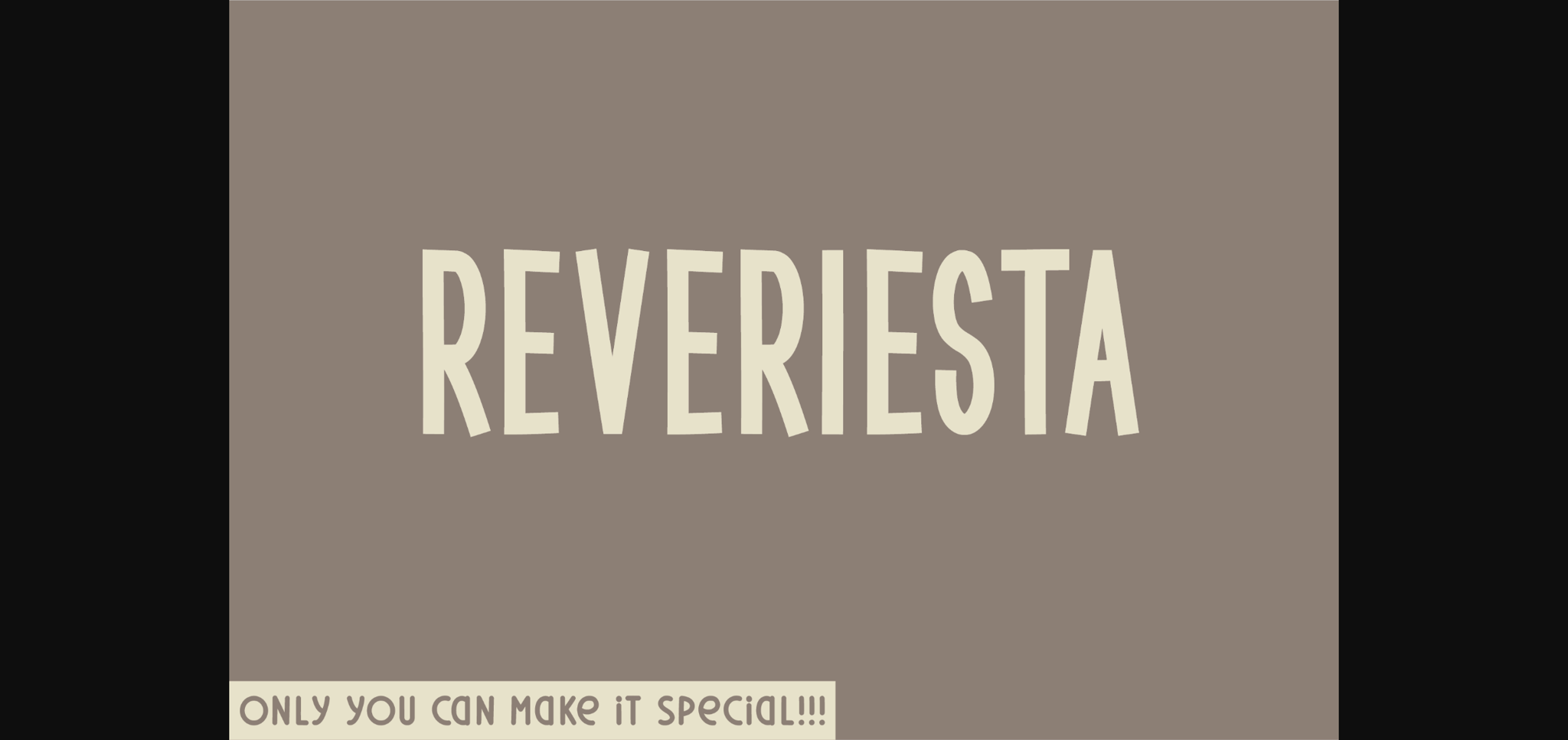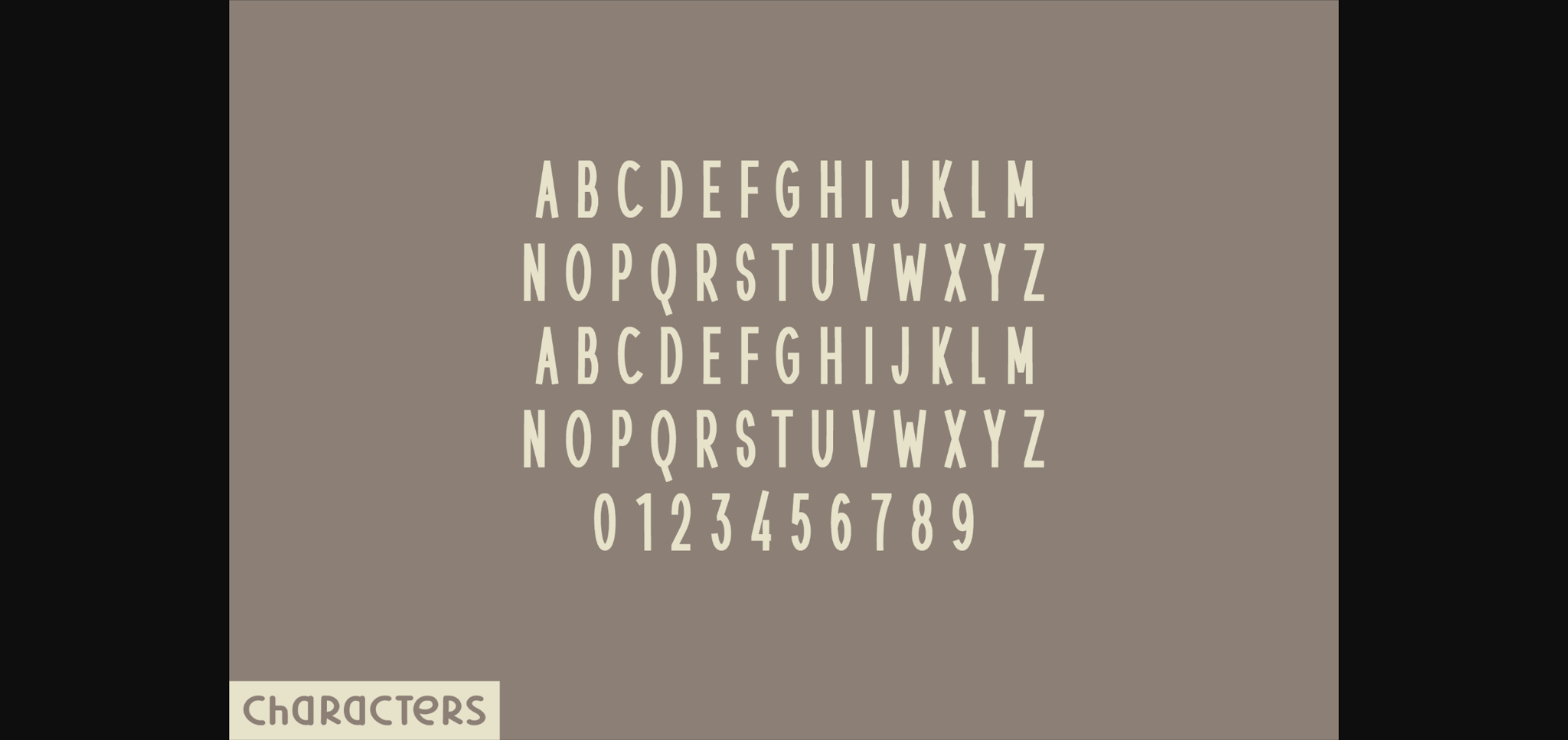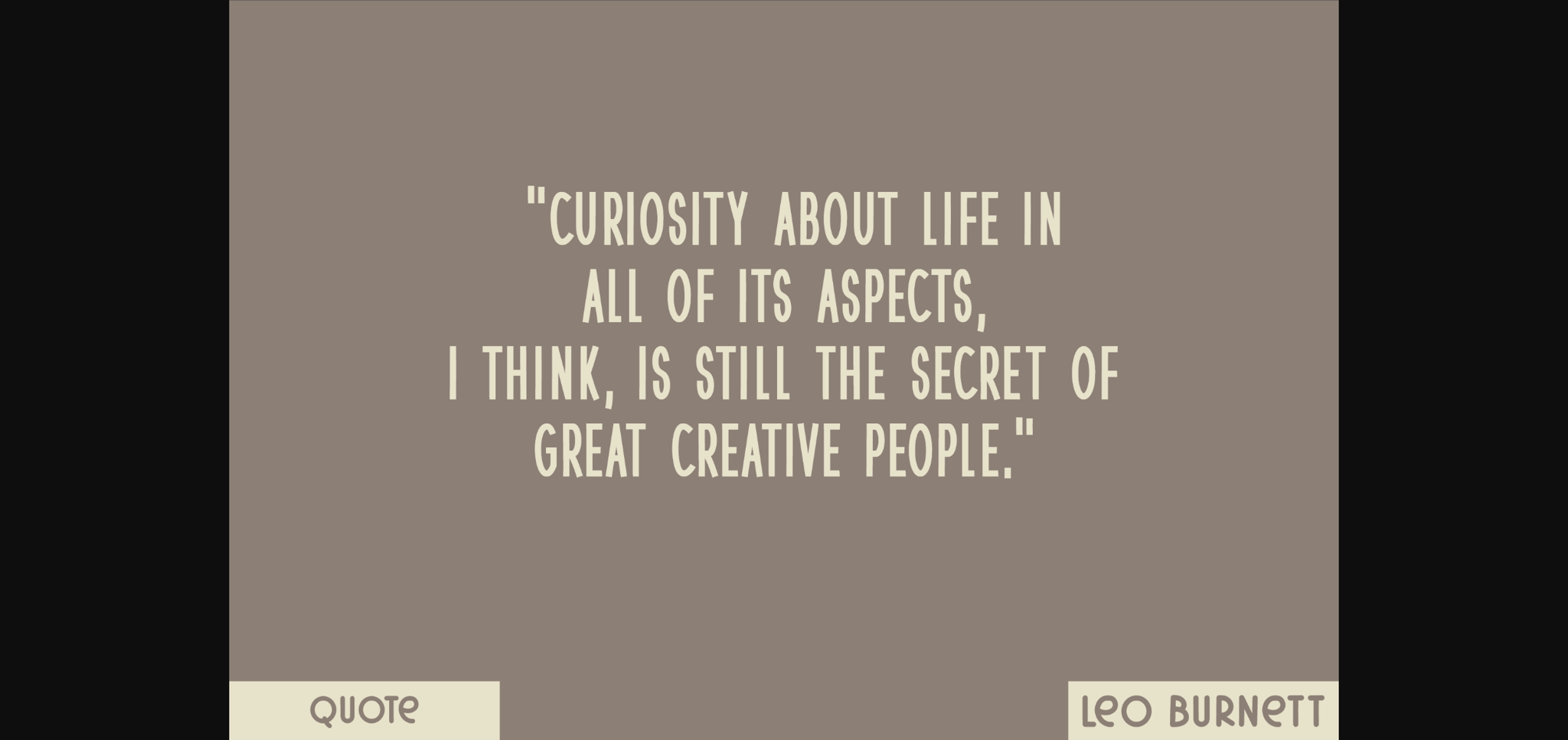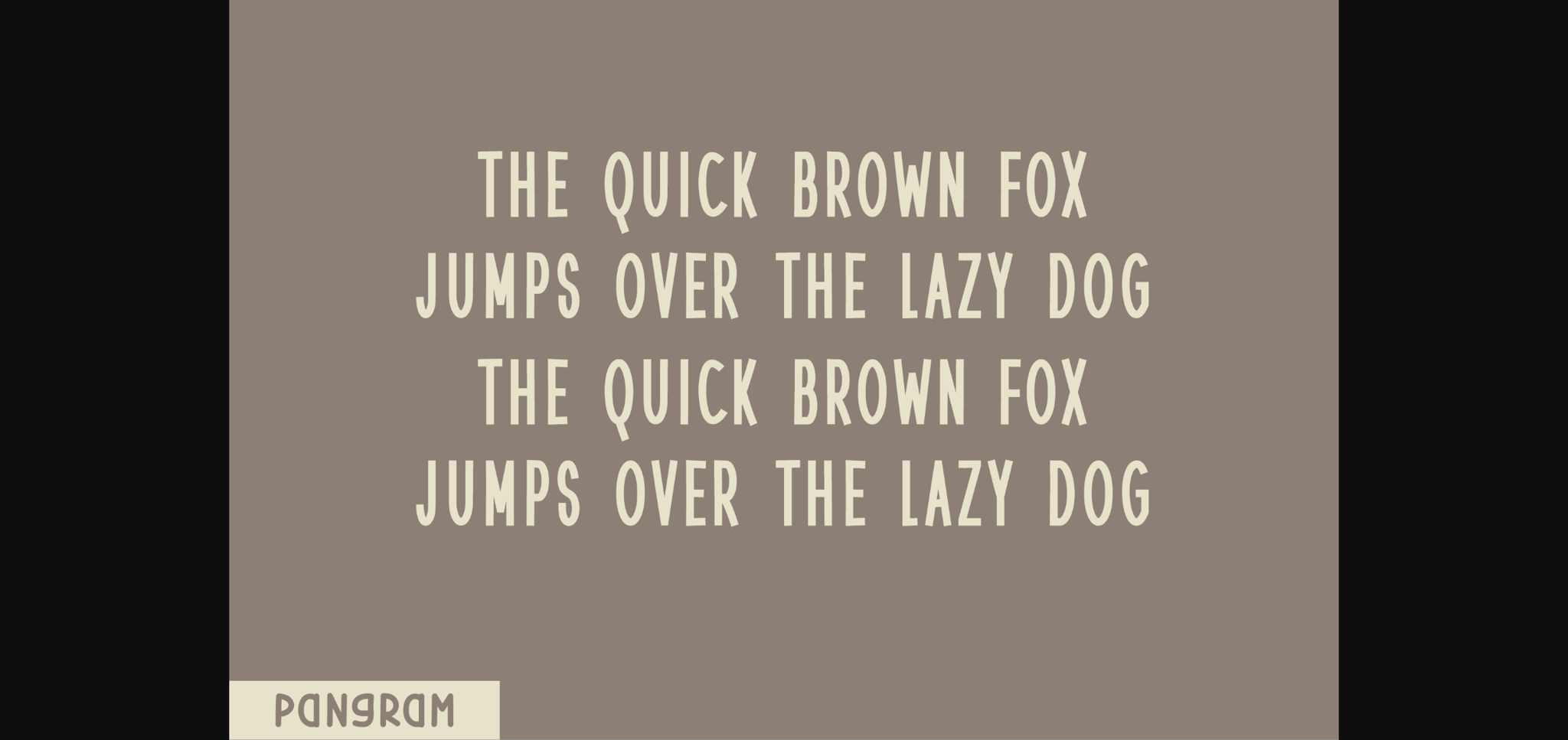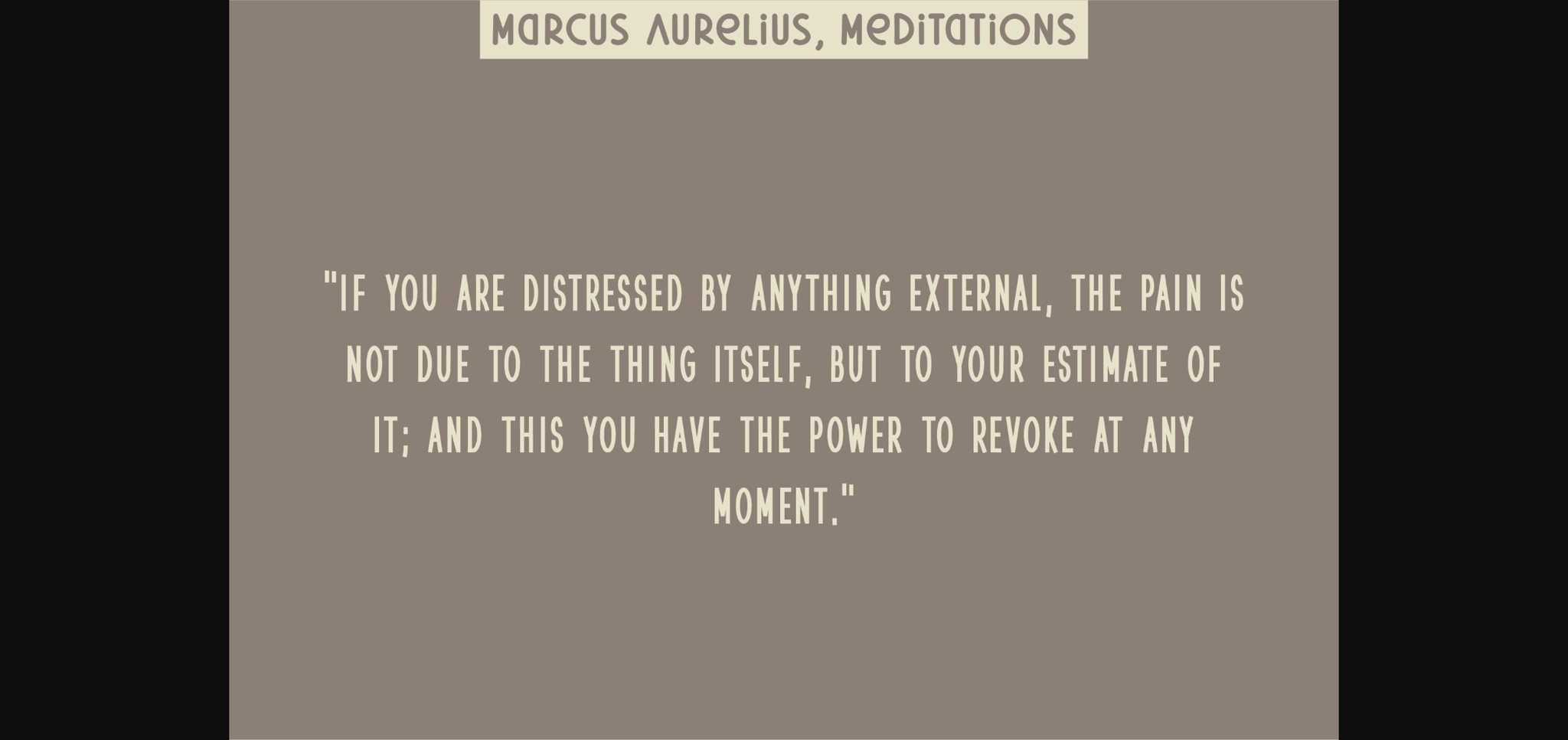
Reveriesta Font
About Reveriesta Font
Unveiling Reveriesta – a distinctive sans serif display font with an organic allure. This unique typography brings together uppercase letters and numbers in a presentation that exudes both modernity and simplicity. Despite its sharp and firm end shapes, Reveriesta intriguingly impersonates the casual charm of natural handwriting. This fusion of rigidity and fluidity perfectly champions designs that call for a touch of authenticity and freshness.